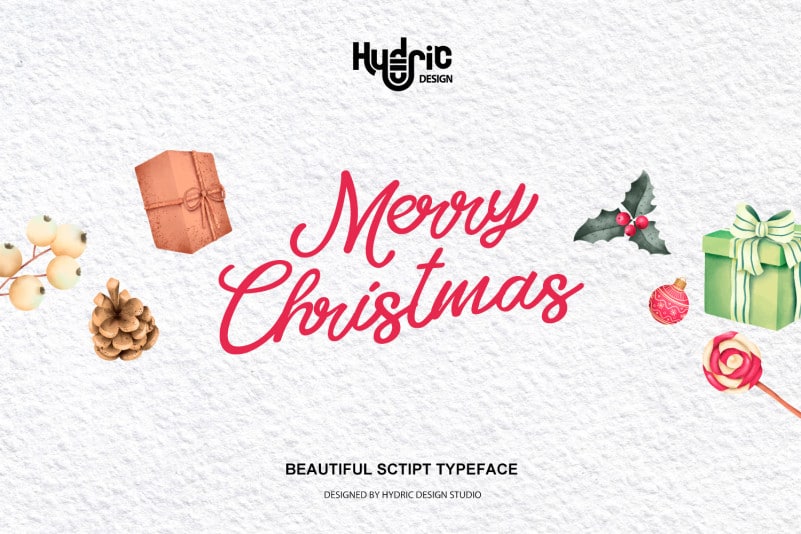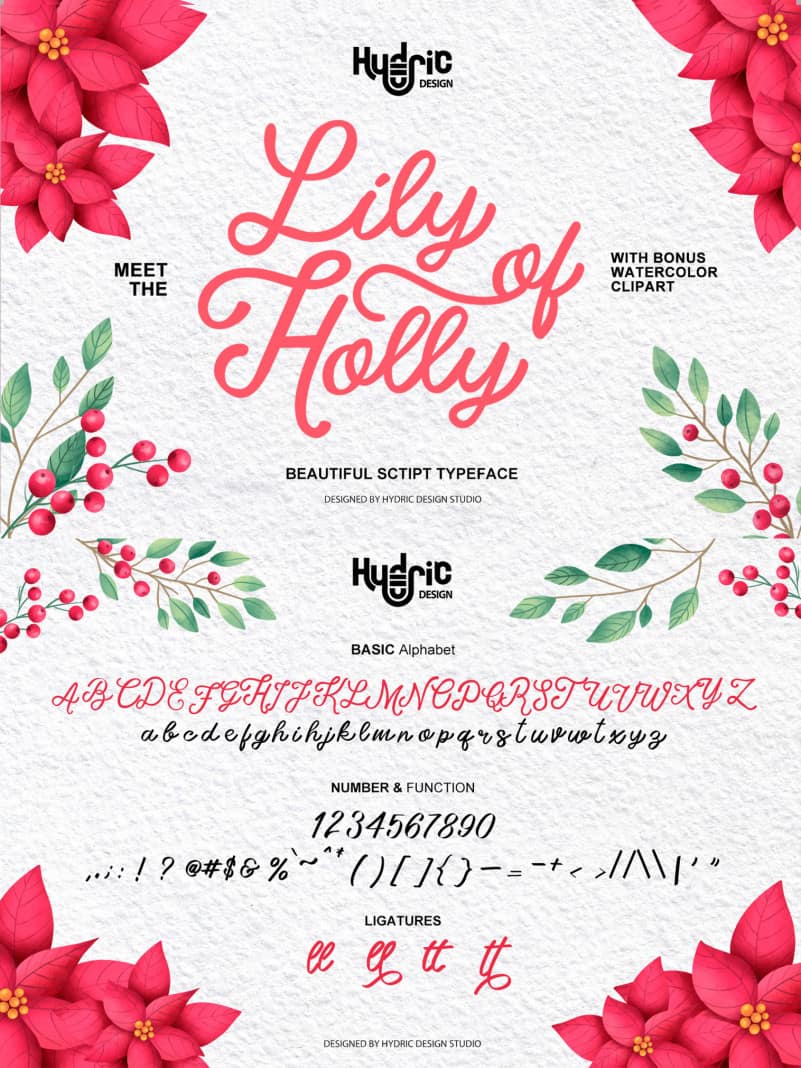
Lily Of Holly Calligraphy Font is a beautiful script font with a Joy & Blessed feel with lots of curly and elegant line, Lily Of Holy offers you a Christmas atmosphere to your design projects. Suitable for book/novel or movie title, logos & branding, social media posts, advertisements & product designs, etc.